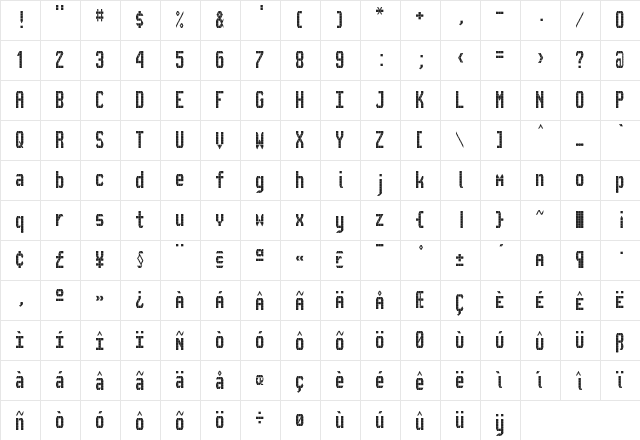
Gateway B2
Design Context for Gateway Typeface
Gateway offers clean, dependable letterforms without strong stylistic allegiance, making it a practical choice for designers who need flexibility.